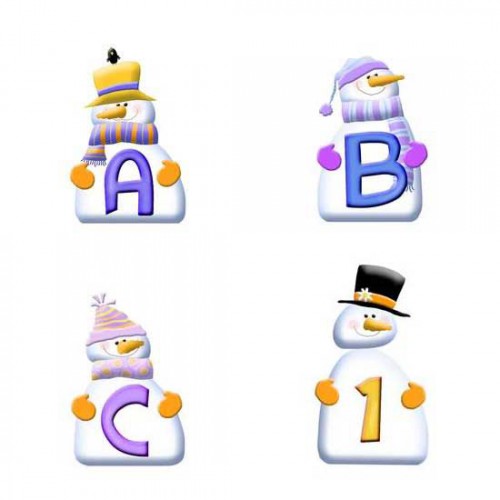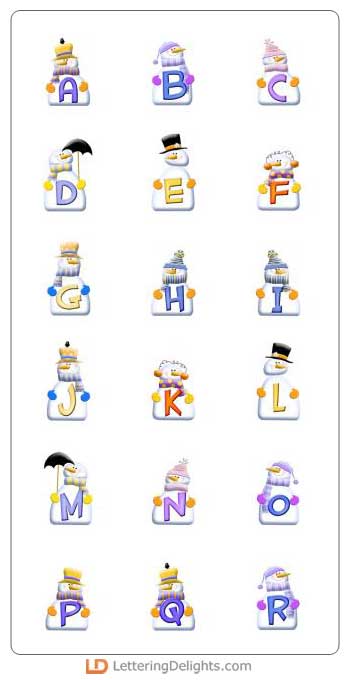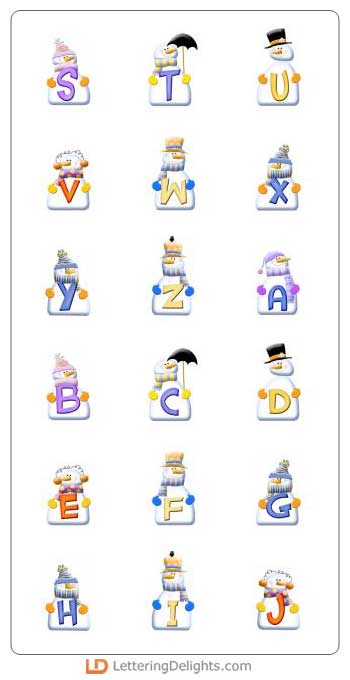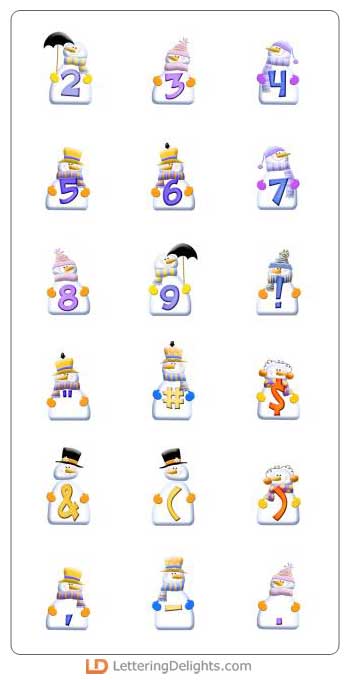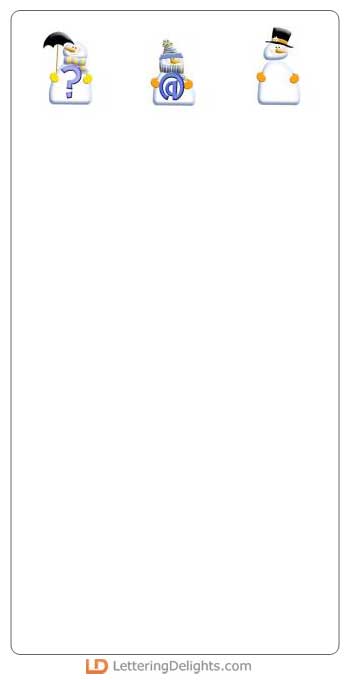
These snow blokes would make Frosty proud! They are round and adorable. Create a masterpiece of paper crafting with these snowman letters. Use the matching Journaling Delights set or Snippits gift tags for more scrapbooking fun!